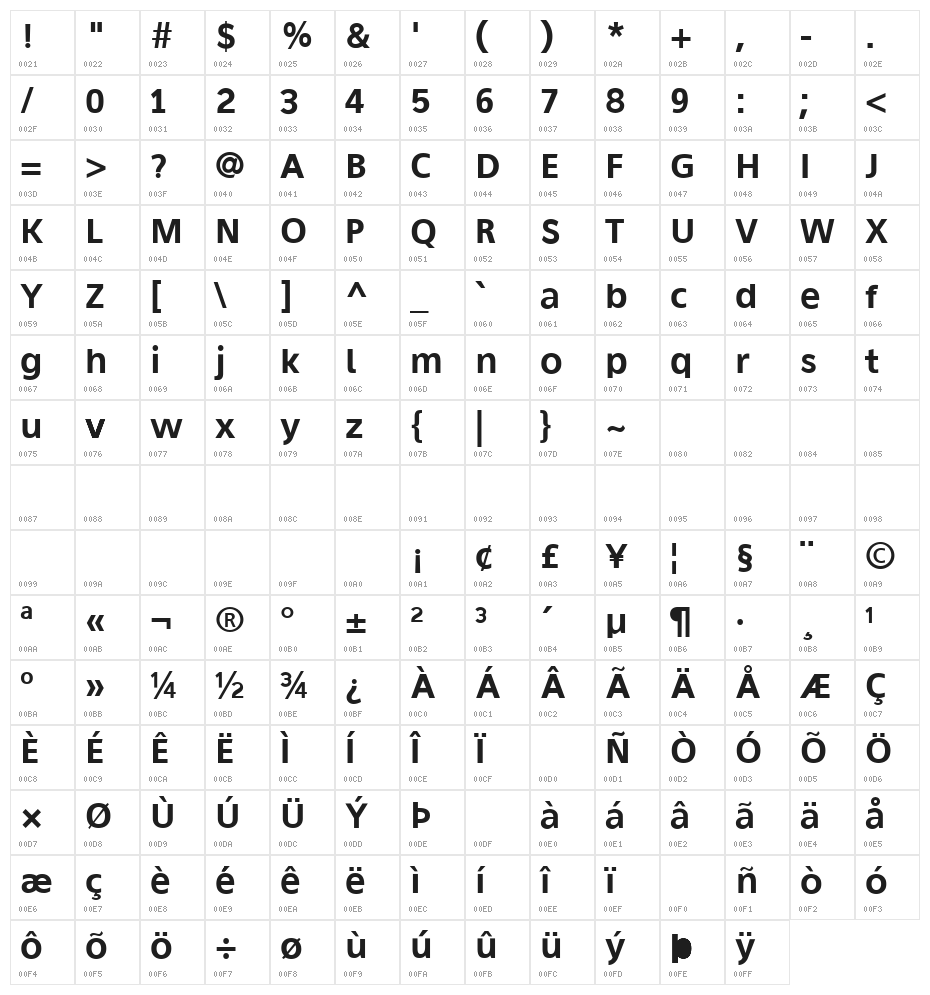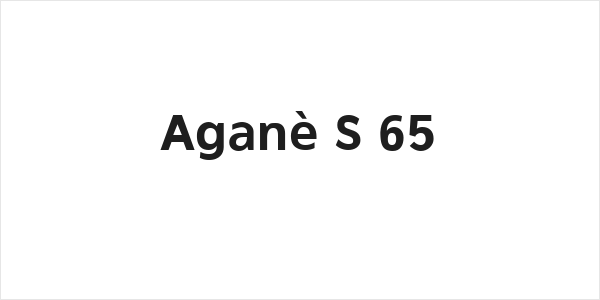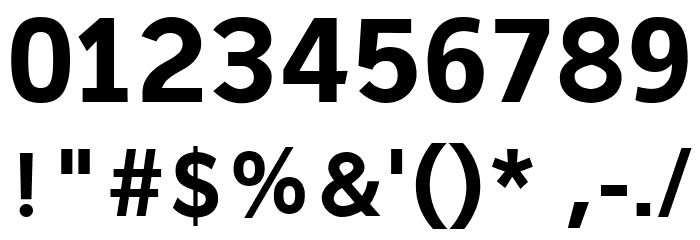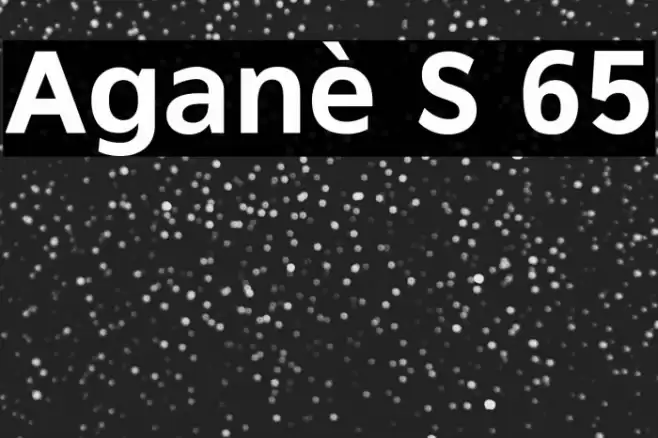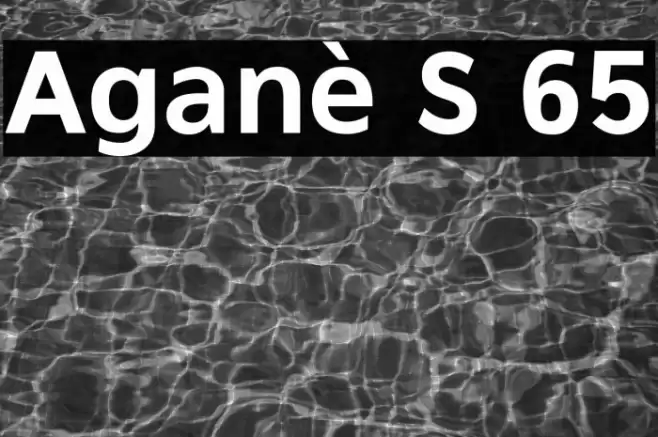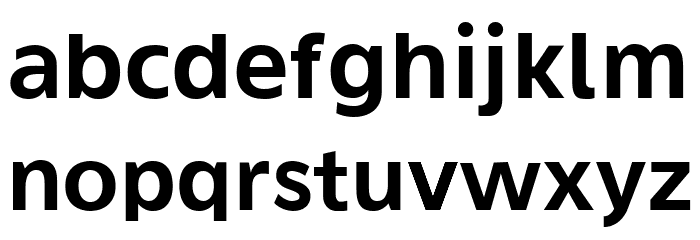
Aganè S 65 Font
Aganè S 65 Description
This font features a clean and modern sans-serif design with uniform stroke widths, making it highly legible and versatile. The characters are well-proportioned, with a slightly condensed appearance that enhances readability without sacrificing style. The uppercase letters are bold and assertive, while the lowercase letters maintain a balanced and approachable look. The numerals are clear and distinct, ensuring easy recognition in various contexts. Special characters are designed with the same attention to detail, providing a cohesive and professional appearance across all glyphs.
| Use Case | Headlines, Body text, Logos |
| Proposed Projects | Ideal for corporate branding, web design, user interfaces, and print media. |